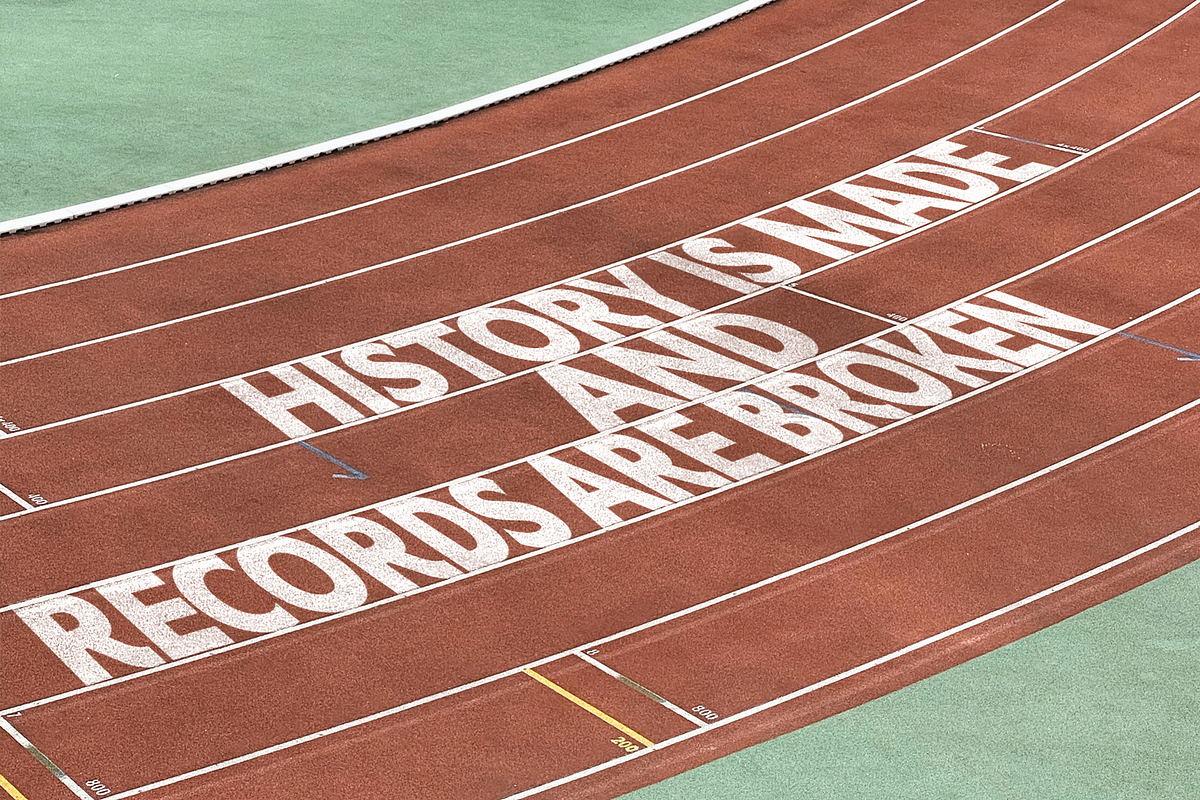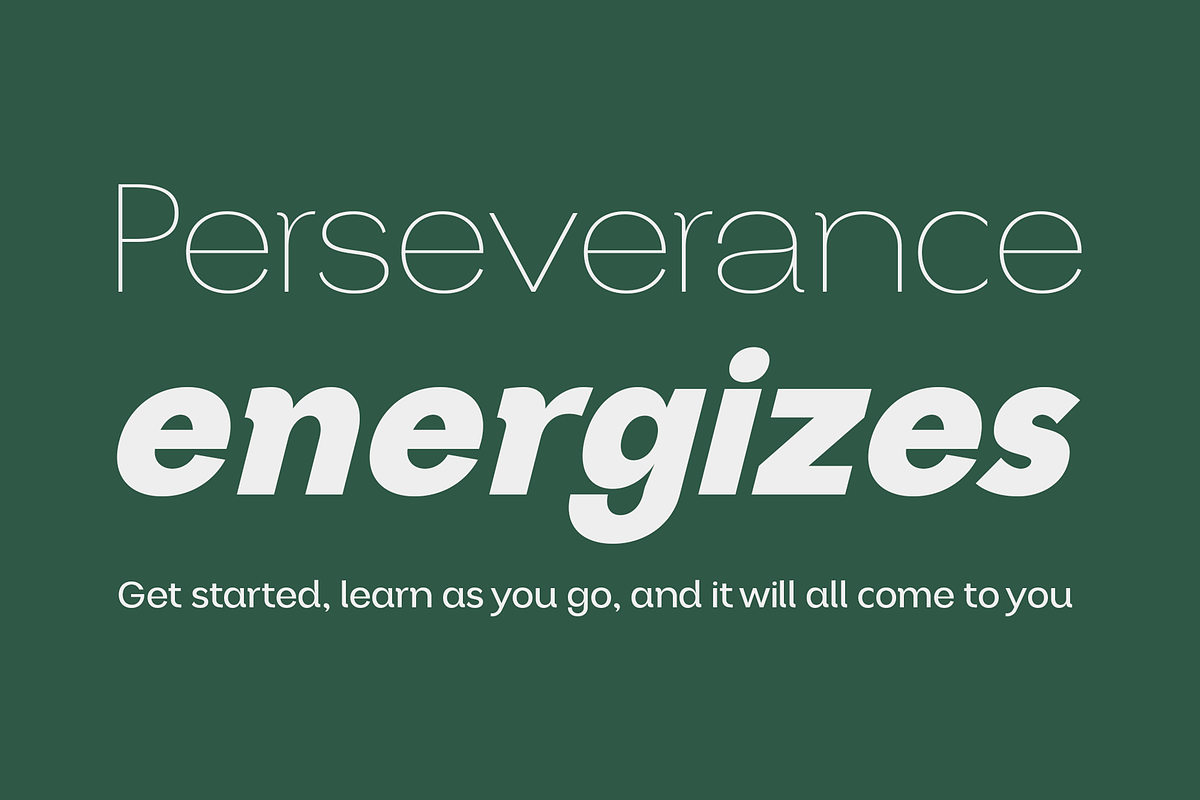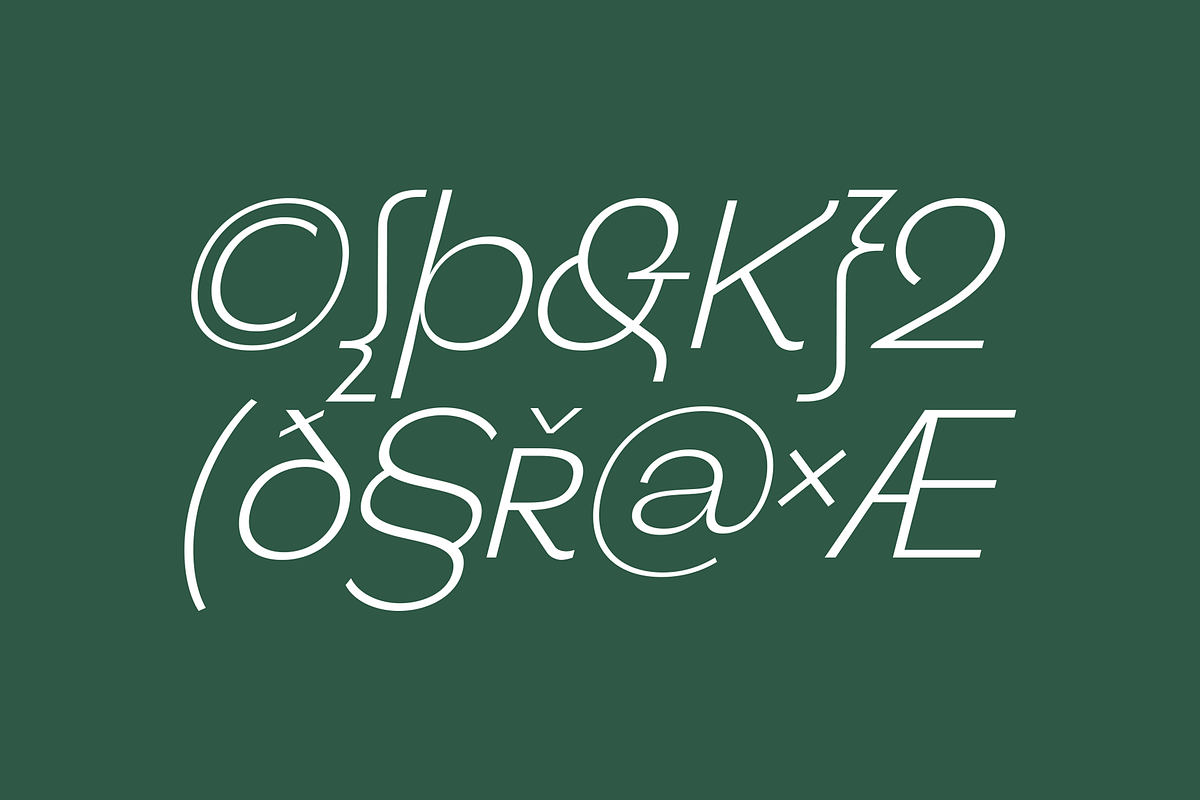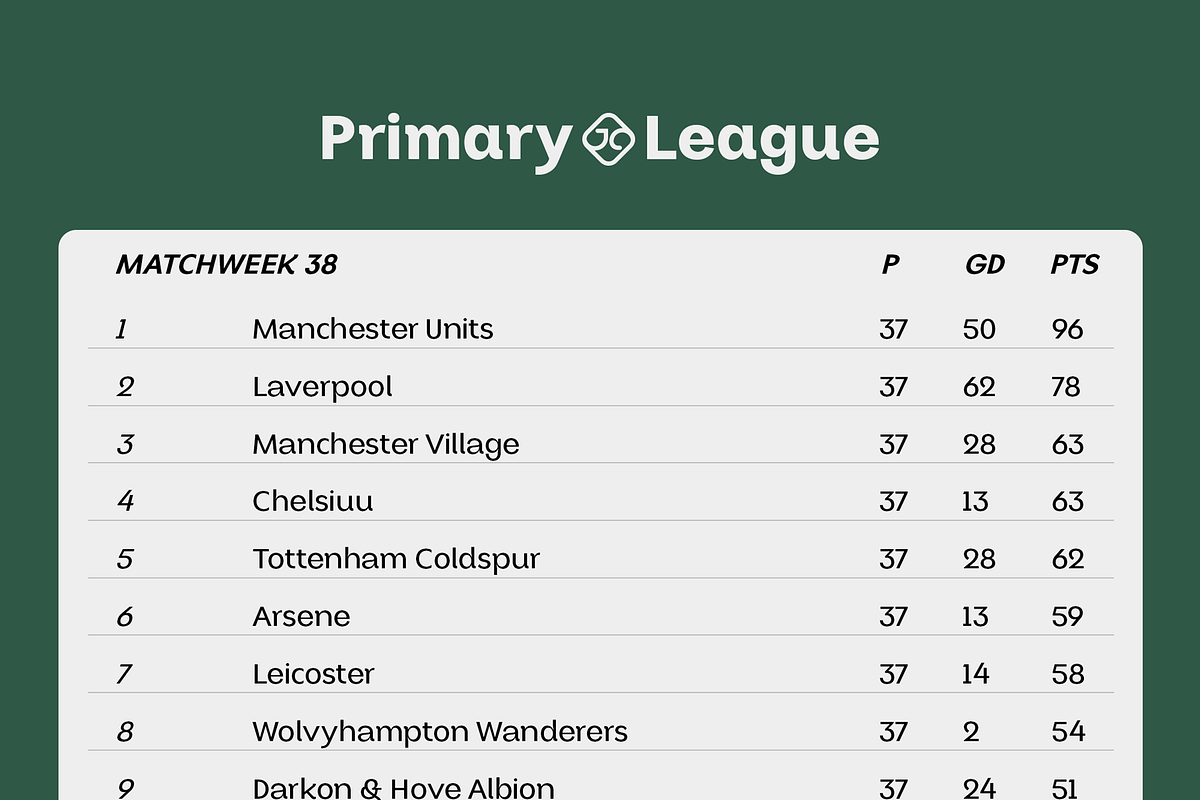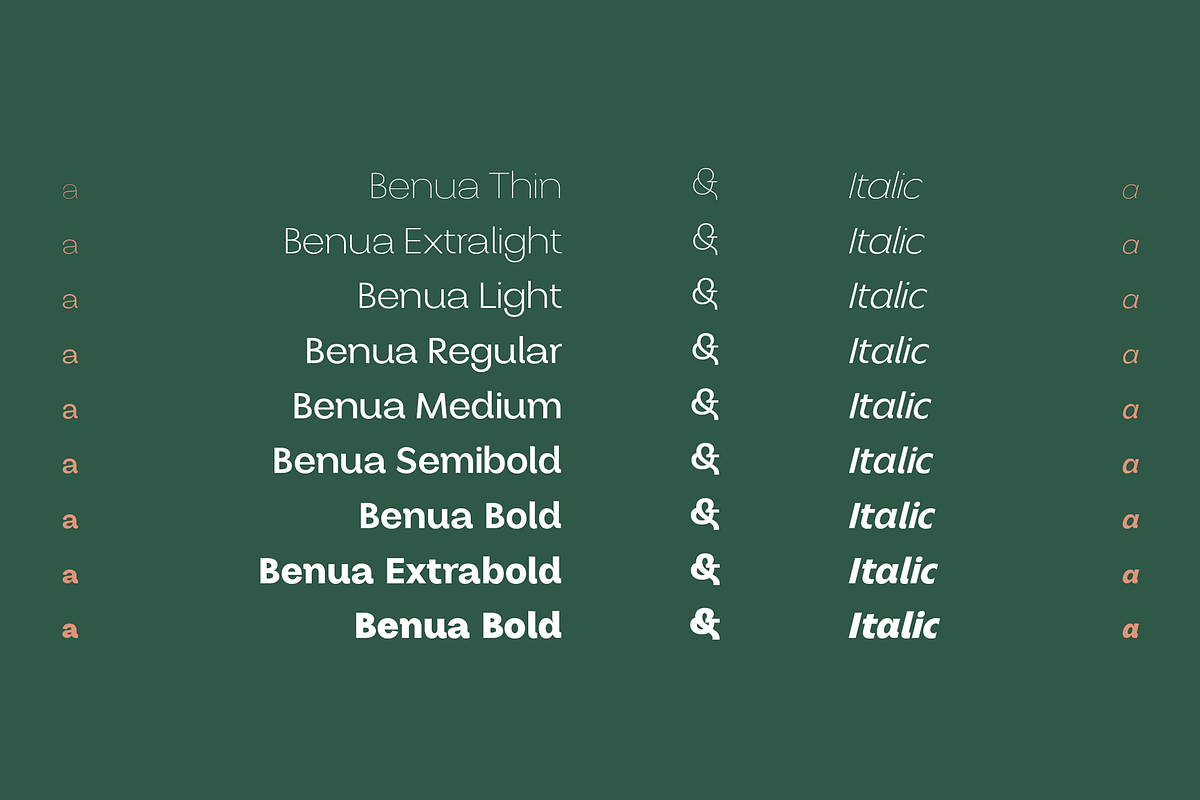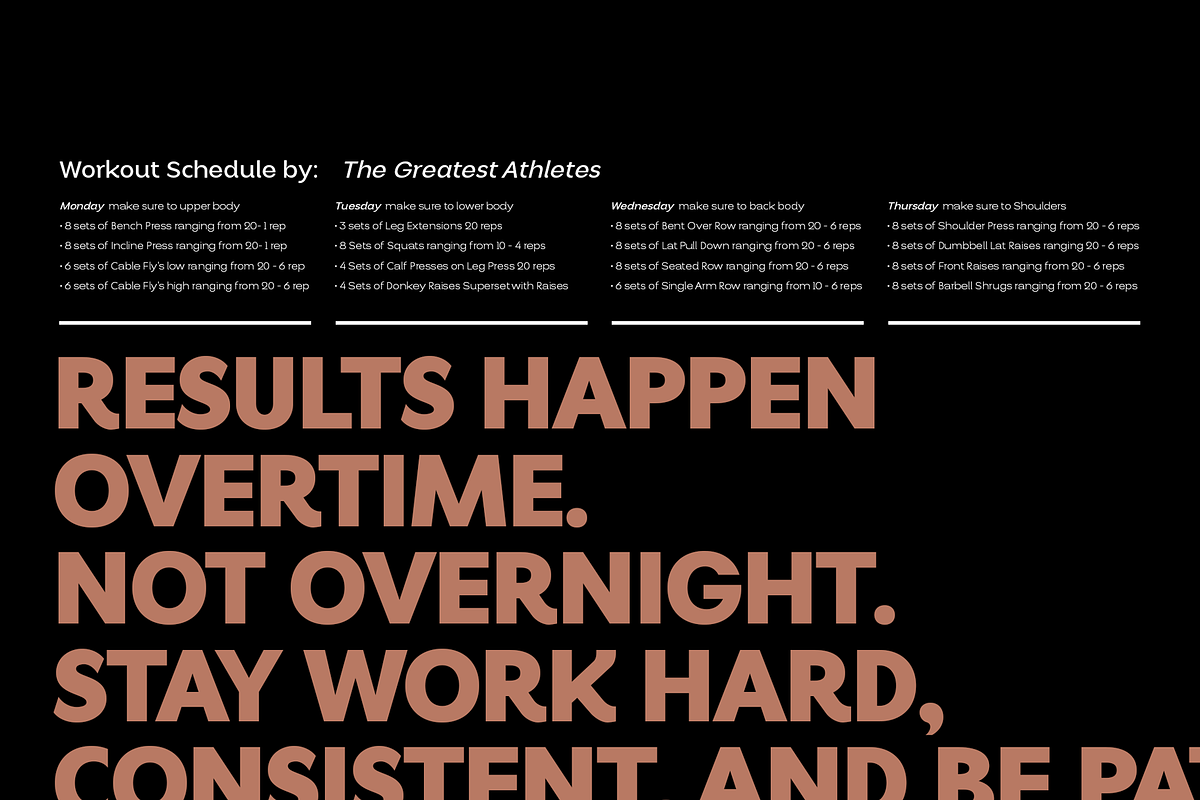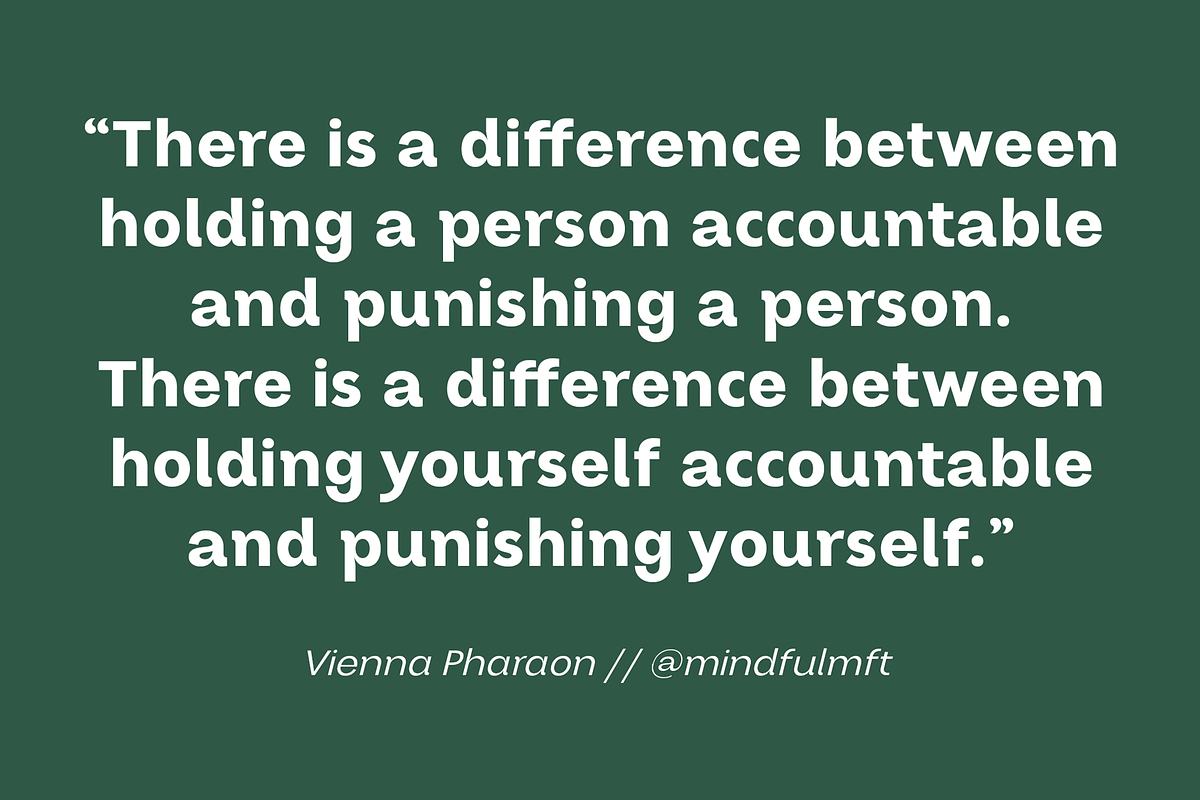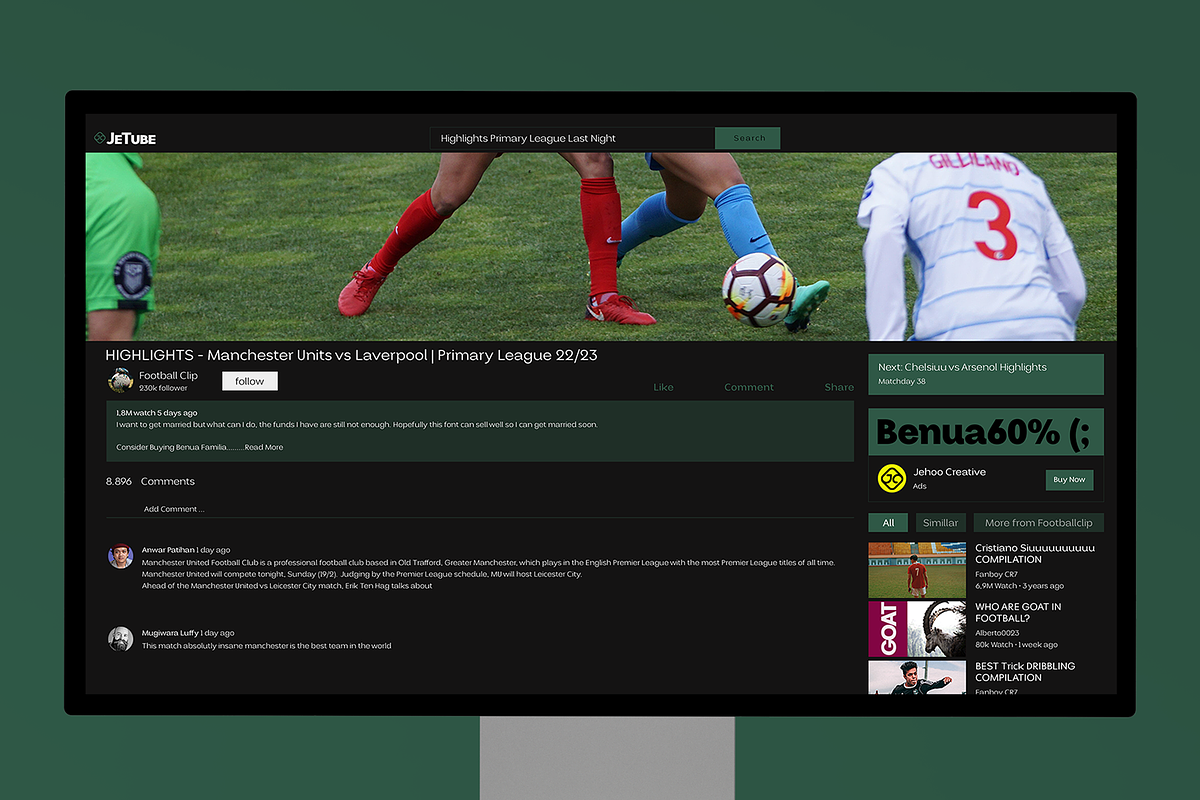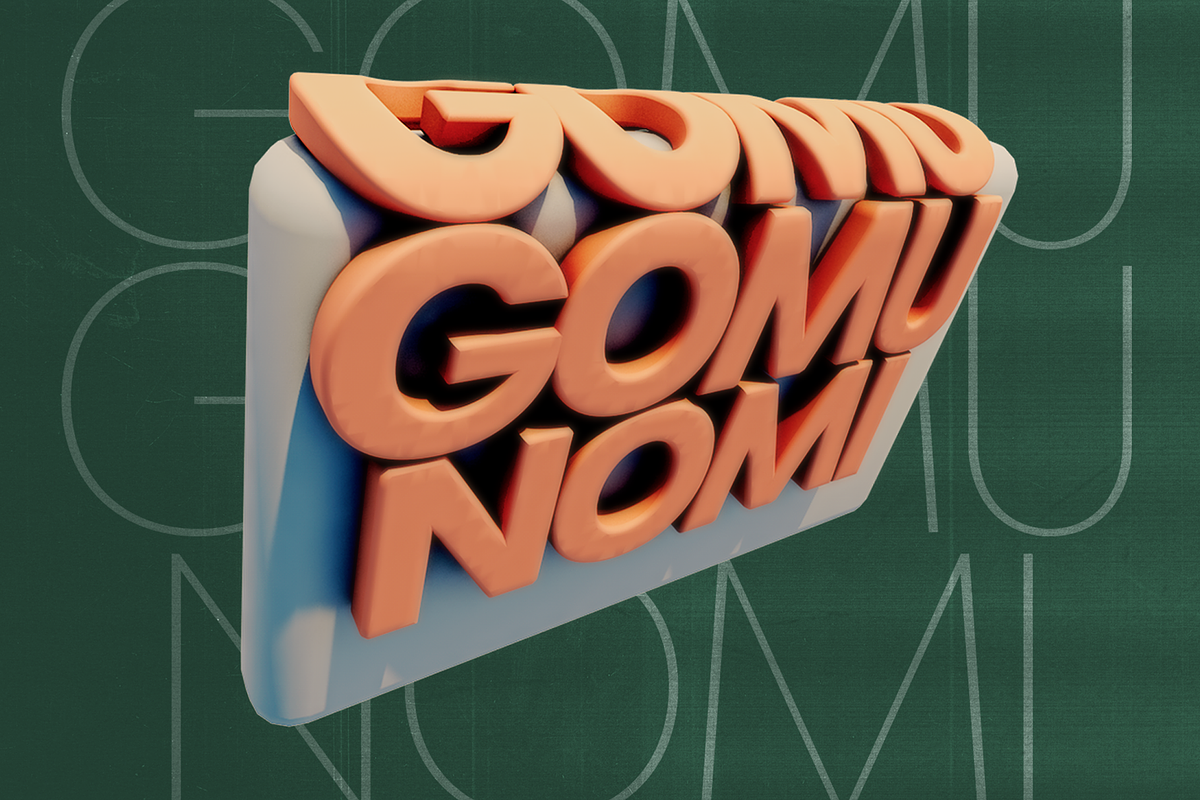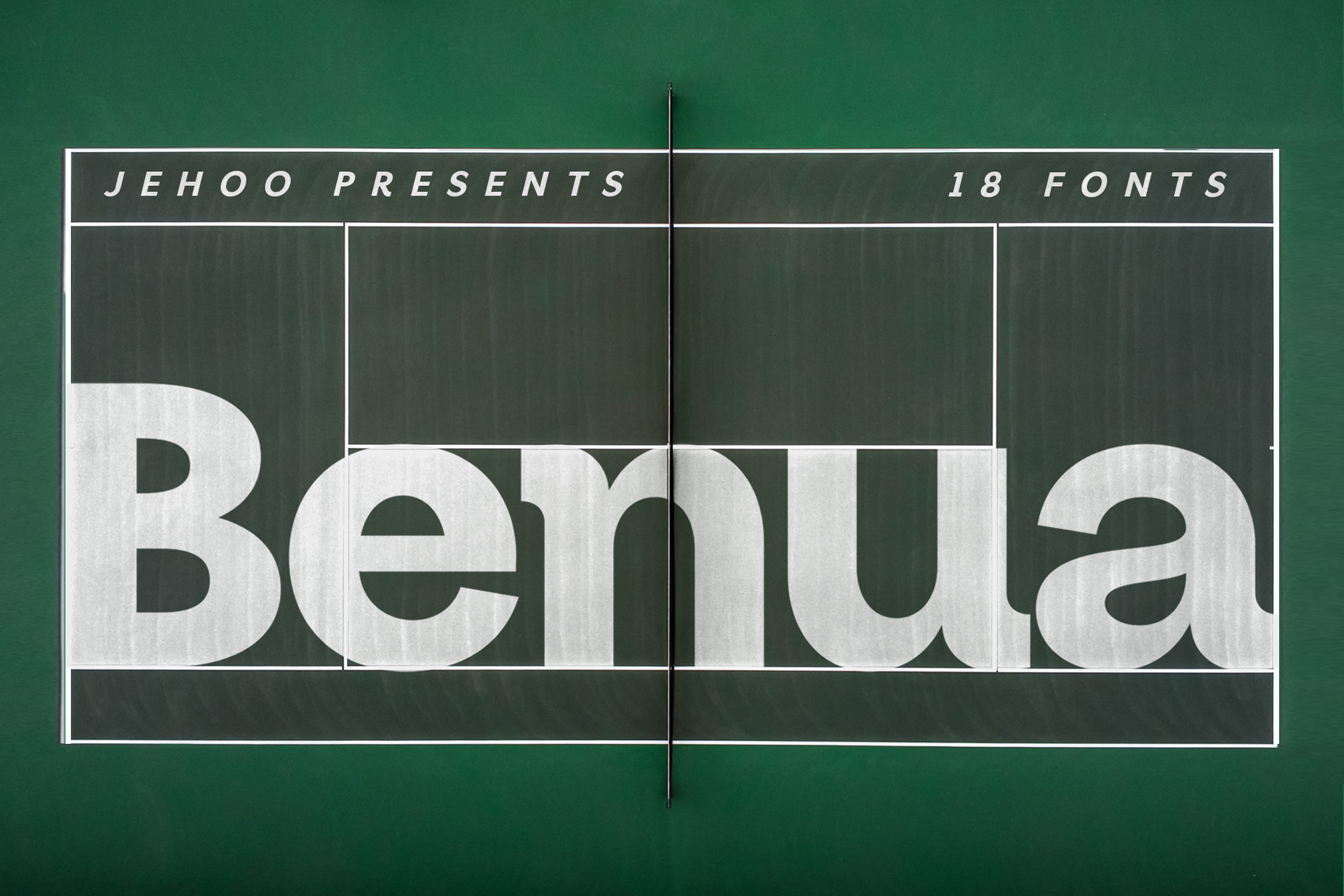
Benua Grotesque TypeFamily + Italic
Benua font family, a sleek and modern sans serif font designed with unique curved details at the letters a, d, l, m, n, p, and r. These details give the font a distinctive look and feel, creating a cohesive and harmonious design. Closed apertures and generous spacing of the font provide excellent legibility, making it an ideal choice for both print and digital media.
Benua also features small caps, which add a touch of elegance and sophistication to any design project. The font comes in 9 weights, from "Thin" to "Black," each equipped with its own italic version, allowing for a range of emphasis and flexibility in design.